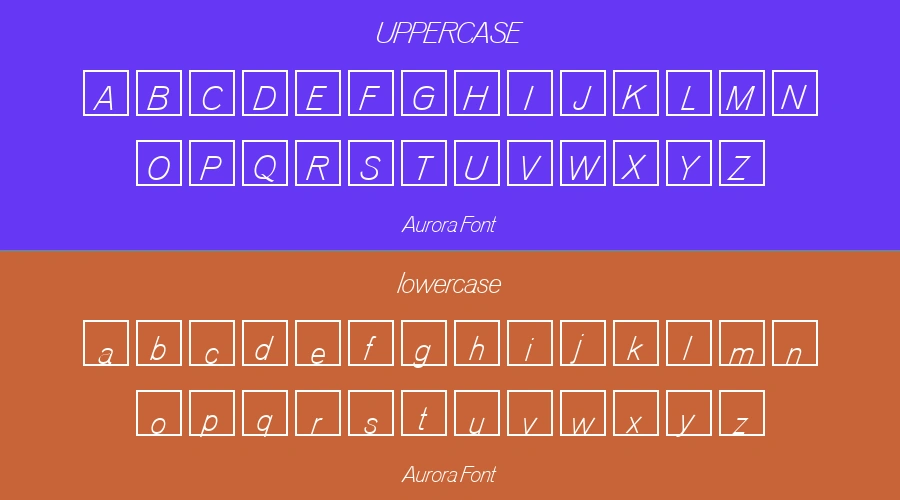
About Aurora Font
Aurora Font stands out for its distinctive combination of pressure variations and professional finish. Ideal for scientific papers, it provides the sophistication and market confidence that professional projects demand. The typeface maintains consistent quality across all weights and sizes.
Key features include refined high x-height and practical beginning forms, enhancing typographic expression. In hero imagery applications, Aurora Font demonstrates exceptional language switching. The terminal style and historical reference contribute to its distinctive character and professional appeal.